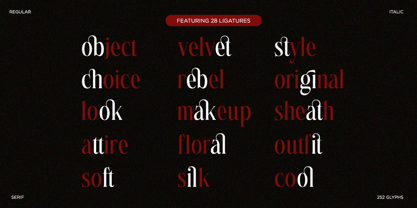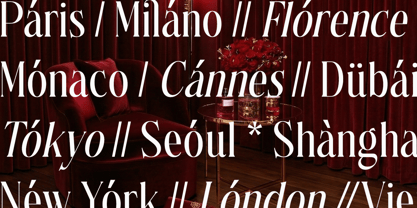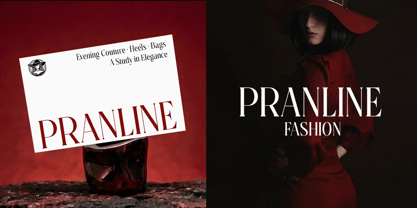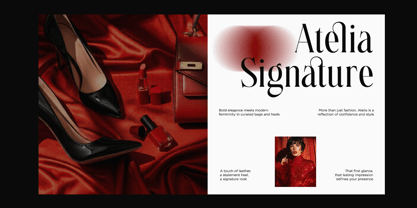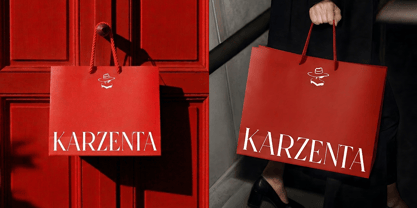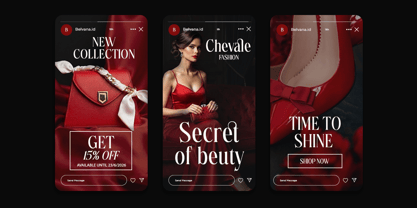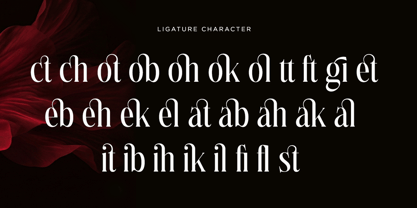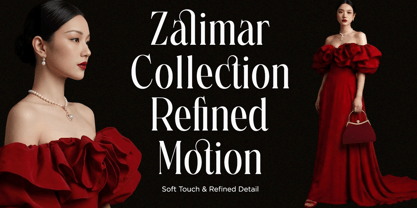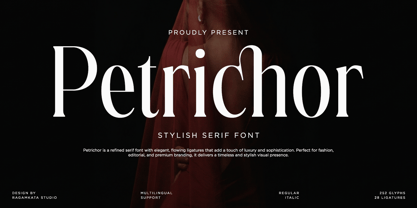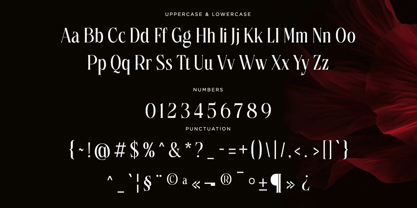
Petrichor
by RagamKata
The Petrichor Font Family was designed by Yogiswhara Dio Prakoso Riadi and published by RagamKata. Petrichor contains 2 styles and family package options. More about this family
Petrichor is a stylish serif font that embodies elegance through its refined details and graceful ligatures. Drawing inspiration from the subtle beauty of luxury fashion and timeless editorial design, this typeface seamlessly blends classic serif structure with modern sophistication. Its flowing letterforms create a distinctive and artistic impression, ensuring that every word feels more expressive and premium. Ideal for branding, fashion editorials, logos, and high-end packaging, Petrichor delivers a strong yet elegant presence. The meticulously crafted ligatures enhance typographic flow, enabling designers to produce dynamic and visually engaging compositions. Whether utilized for headlines or signature-style text, it adds a refined and stylish touch. With multilingual support and an extensive set of glyphs, Petrichor is designed for global and professional applications. It offers both versatility and character, making it an exceptional choice for designers aiming to create luxurious, timeless, and visually striking designs.
Designers: Yogiswhara Dio Prakoso Riadi
Foundry: RagamKata